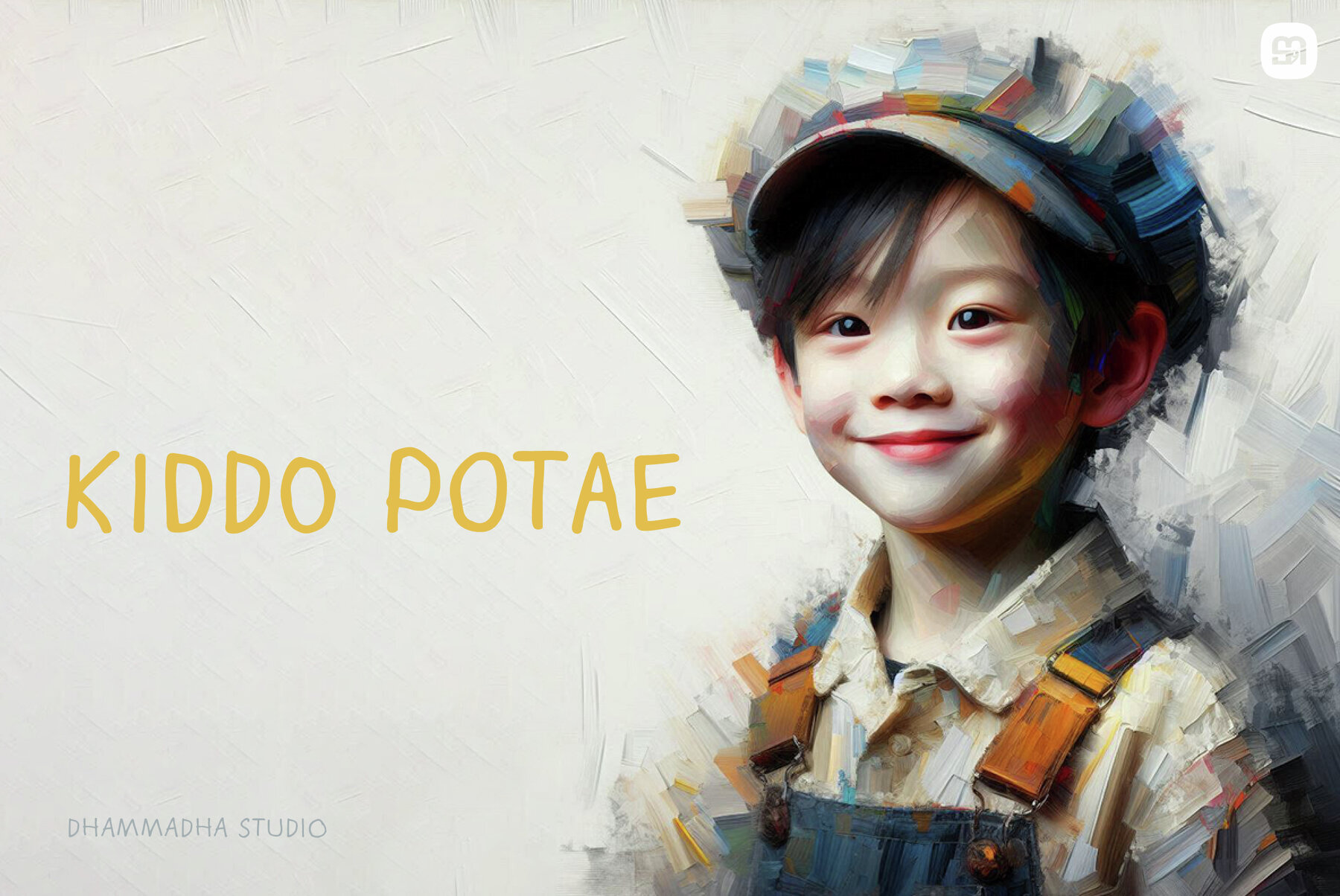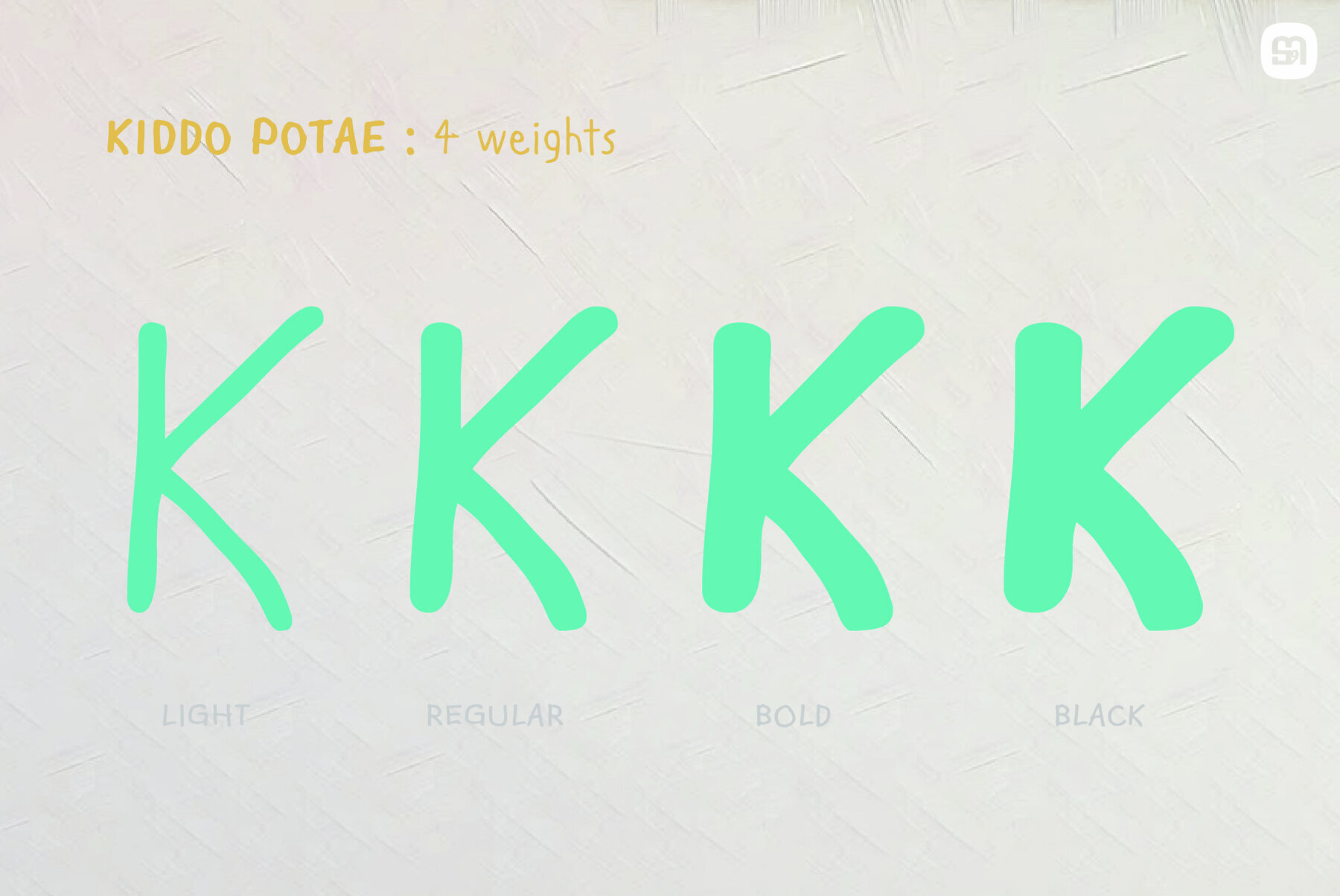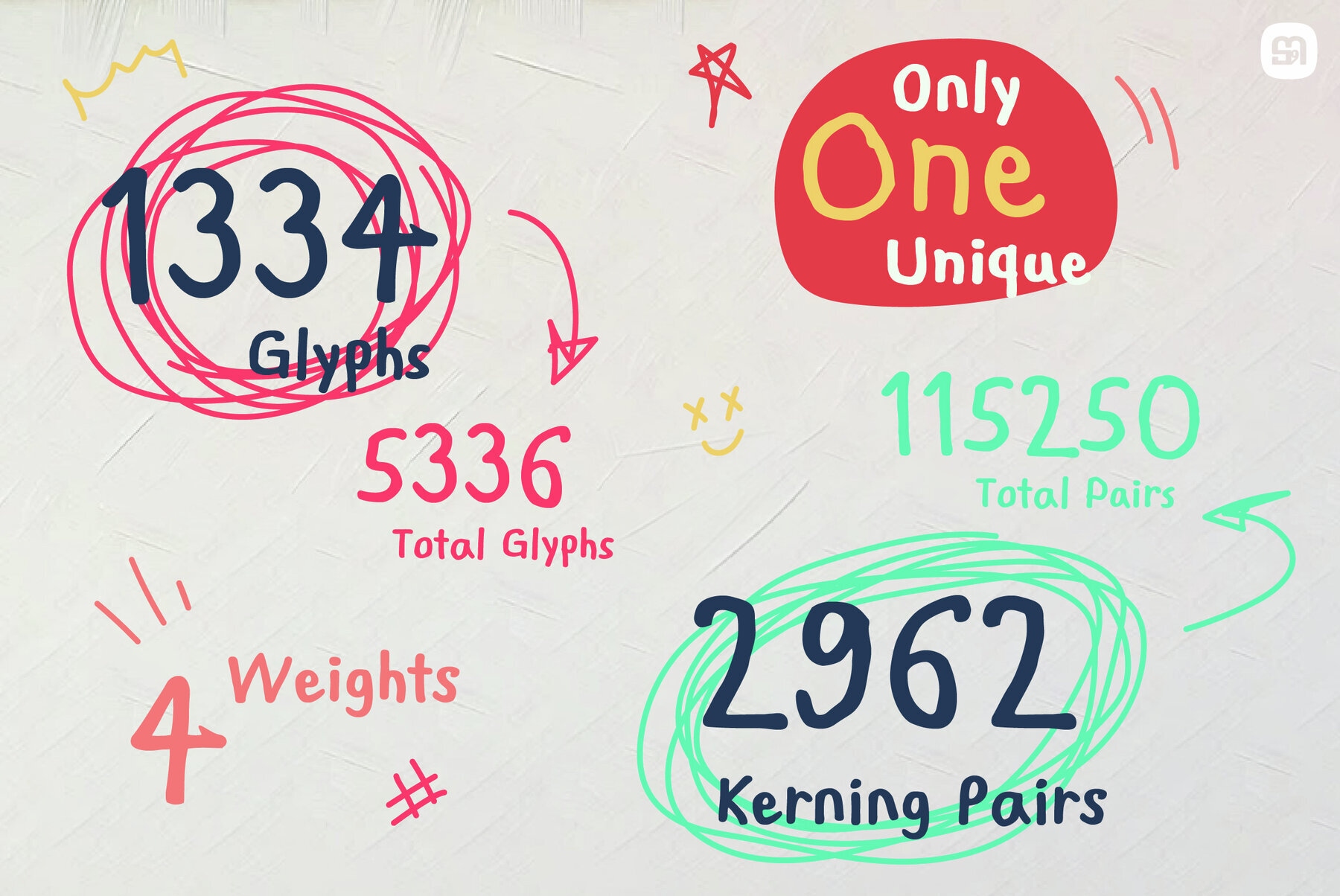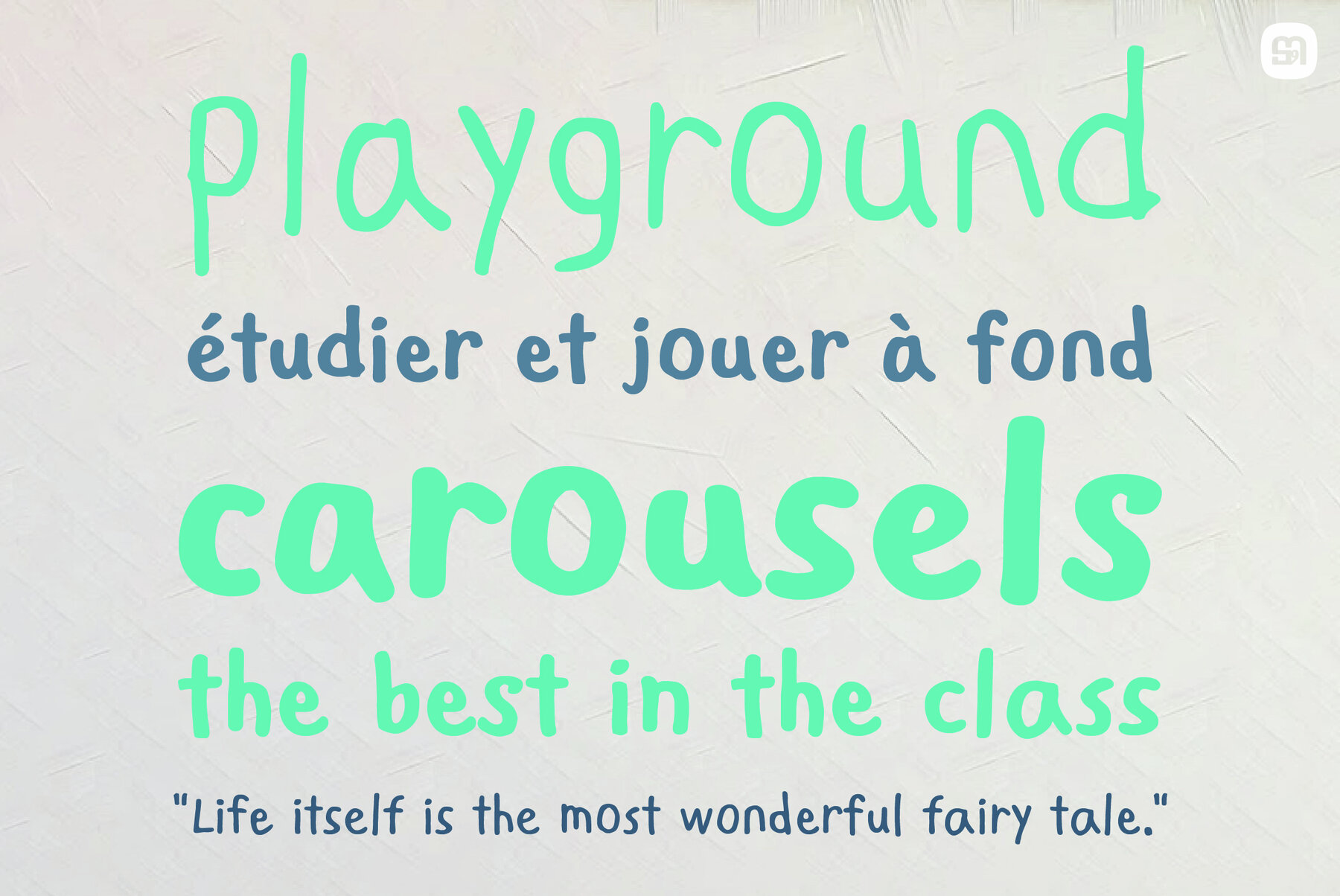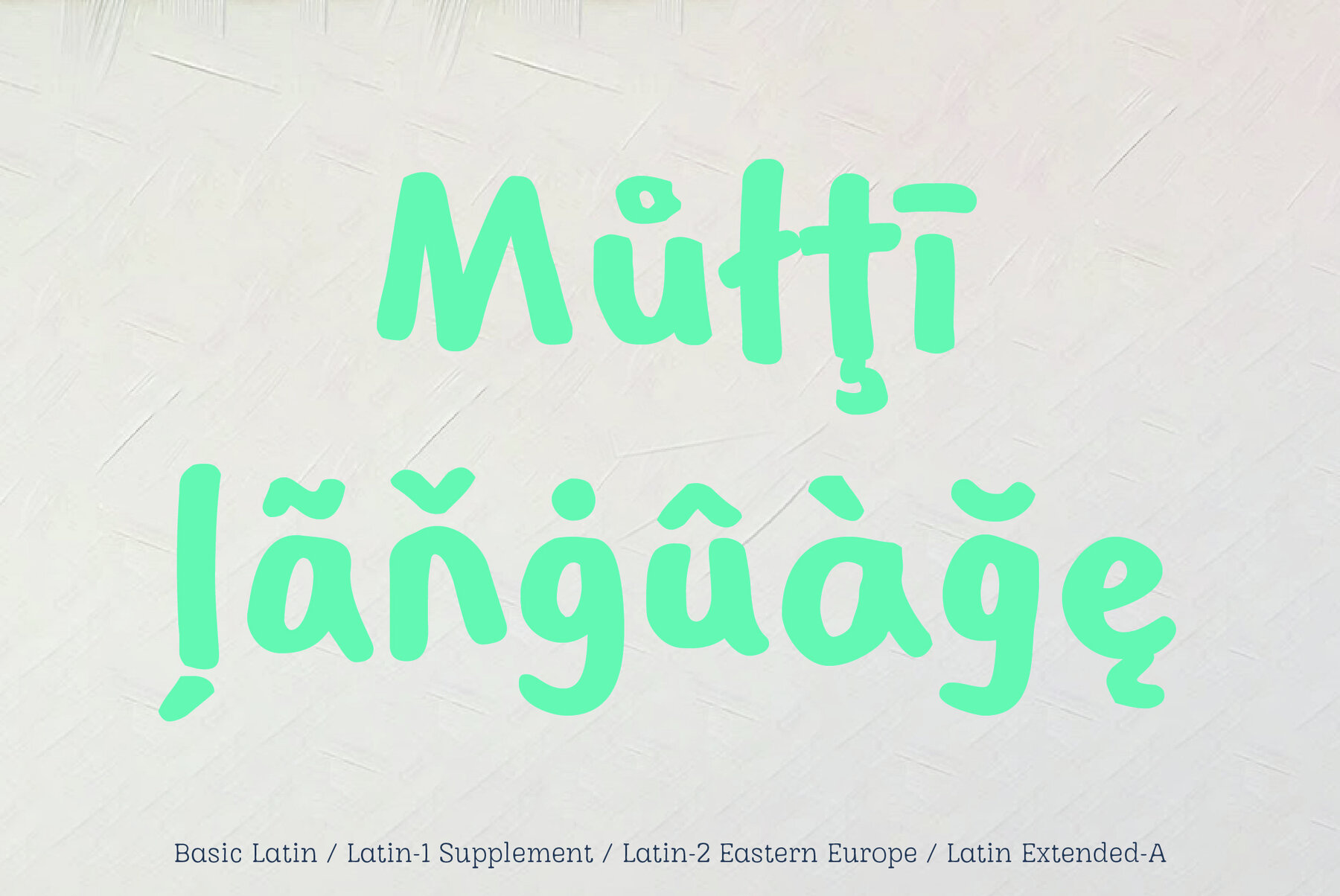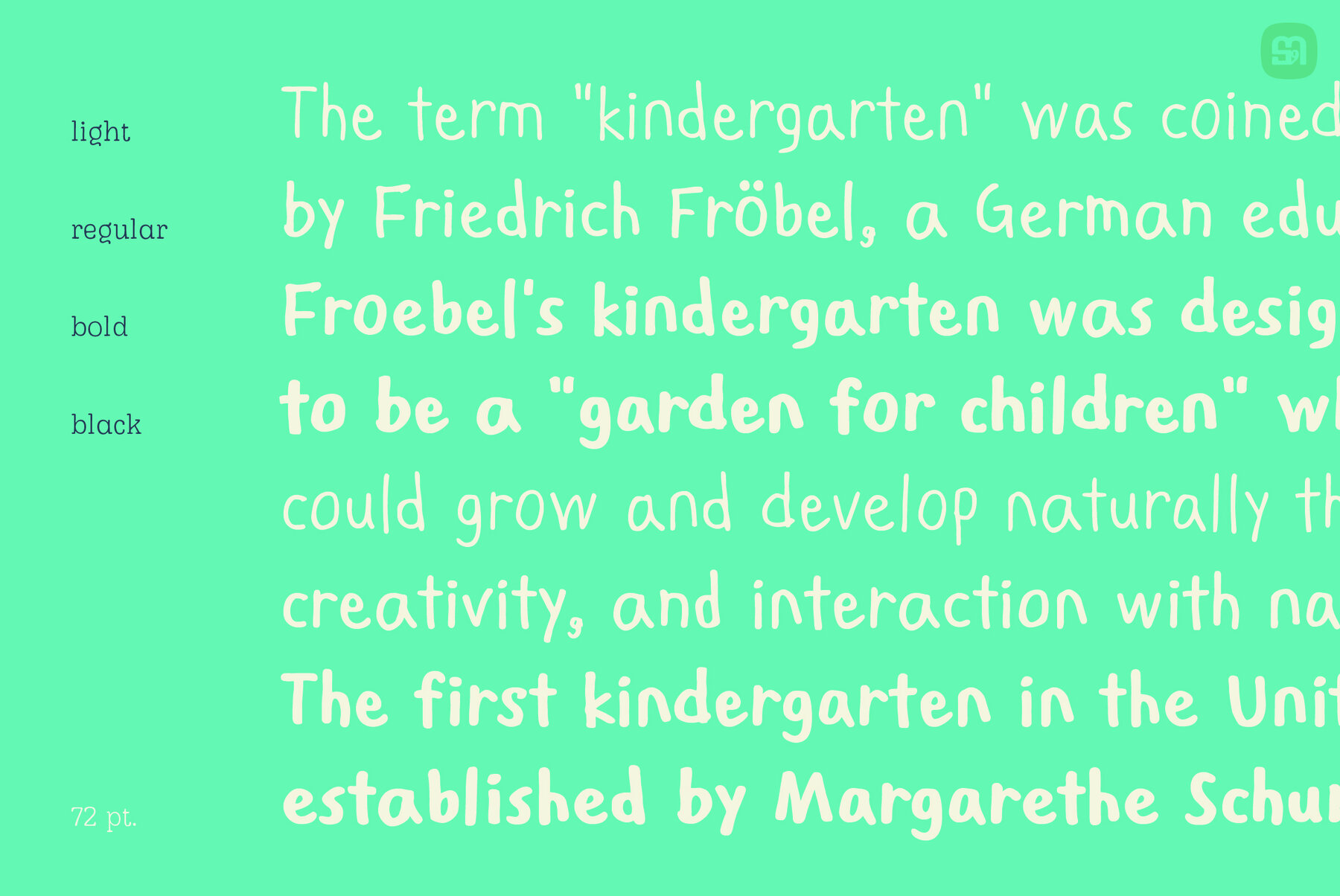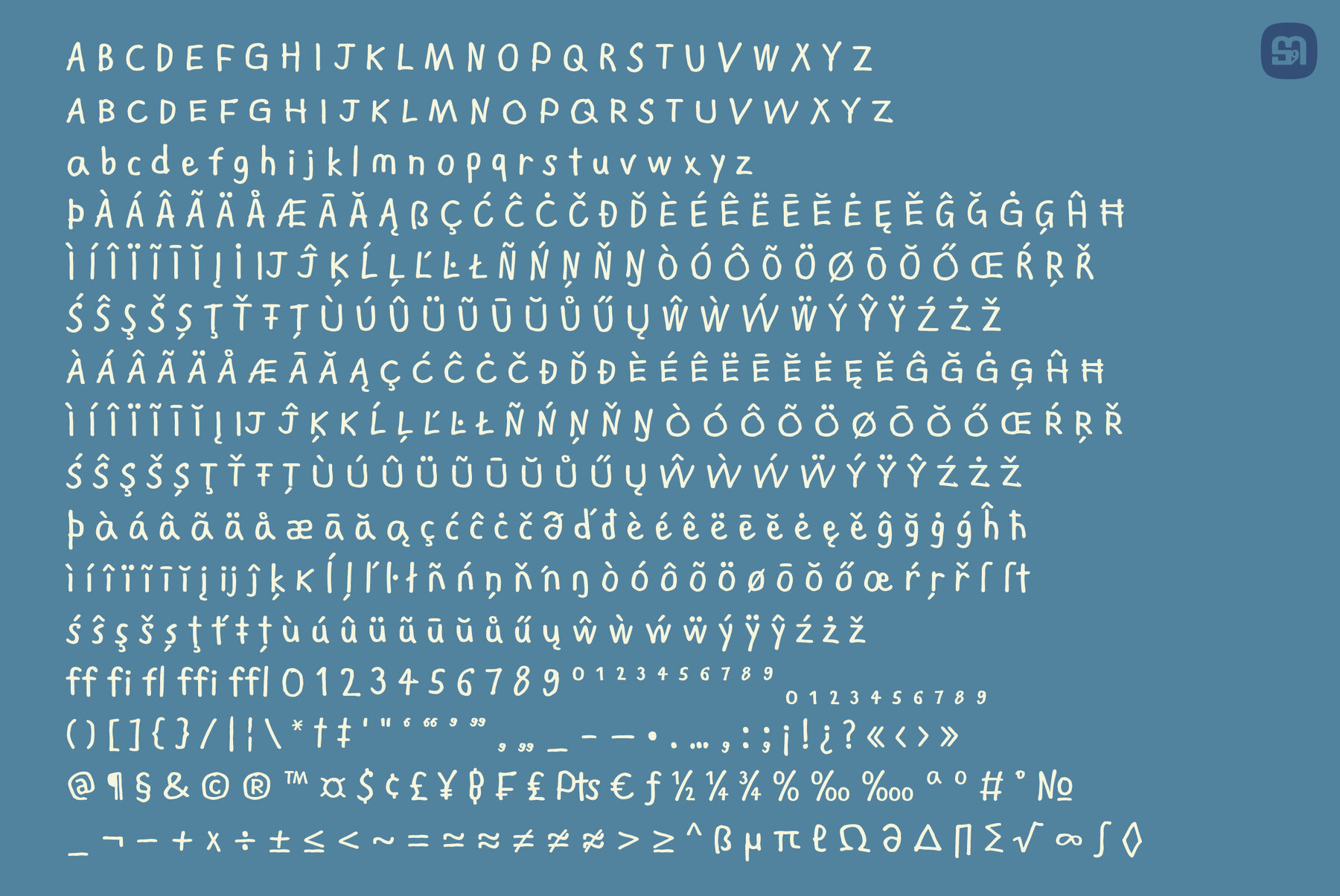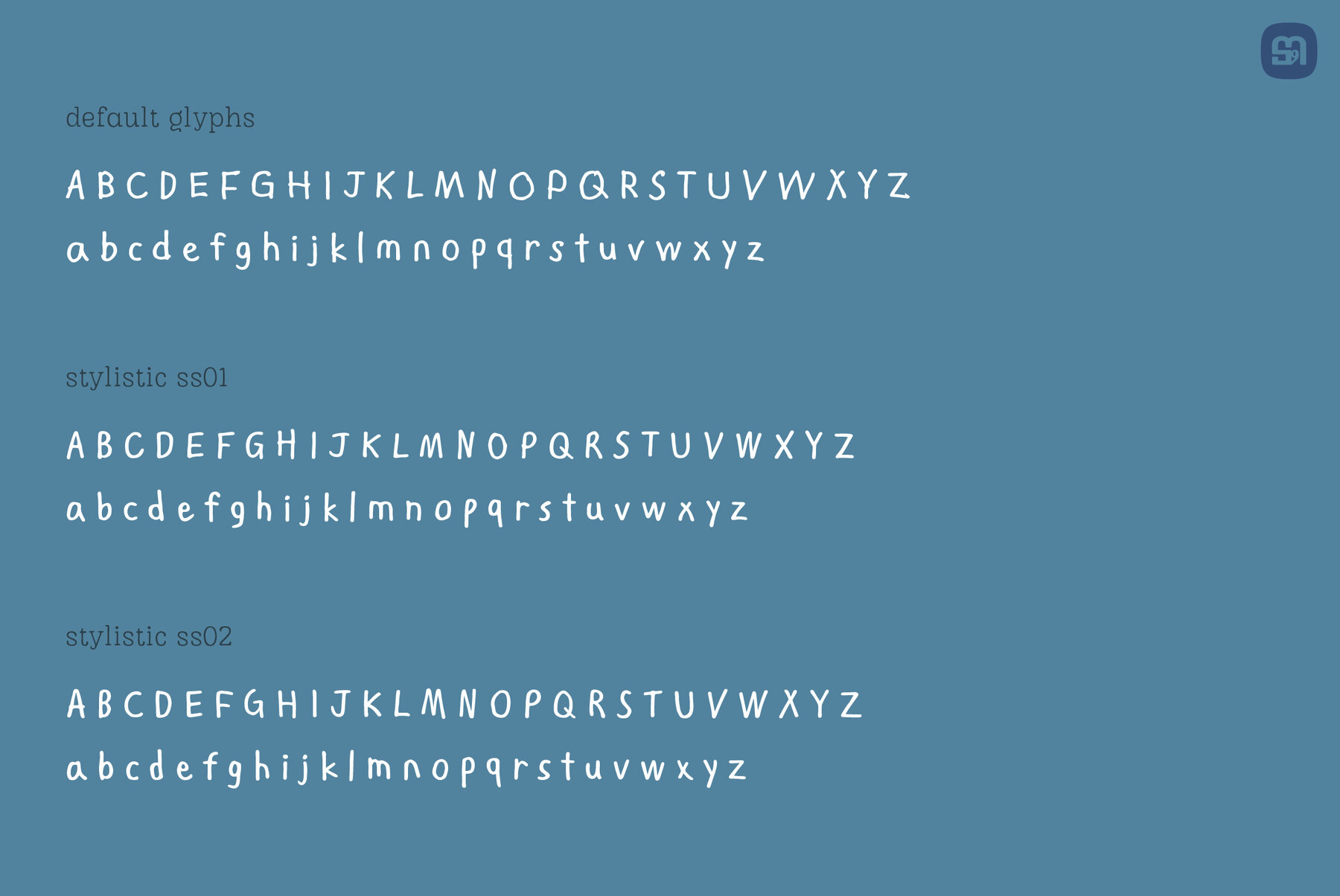
KIDDO POTAE Font
Kiddo Potae is a charmingly versatile font that captures the joy and simplicity of childhood. This delightful typeface includes three distinct character sets, enabling an engaging mix of words to add visual diversity and dynamism to any project. Its use is intuitive, making it an excellent choice for boosting creativity and aesthetic coherence in your designs.
Bring out a playful, whimsical side in your work with Kiddo Potae. This hand-drawn font lets your projects stand out with its inviting appeal, perfect for adding a unique touch to your creative endeavors. Embrace the enchanting qualities of this font to make a bold statement in your design projects.